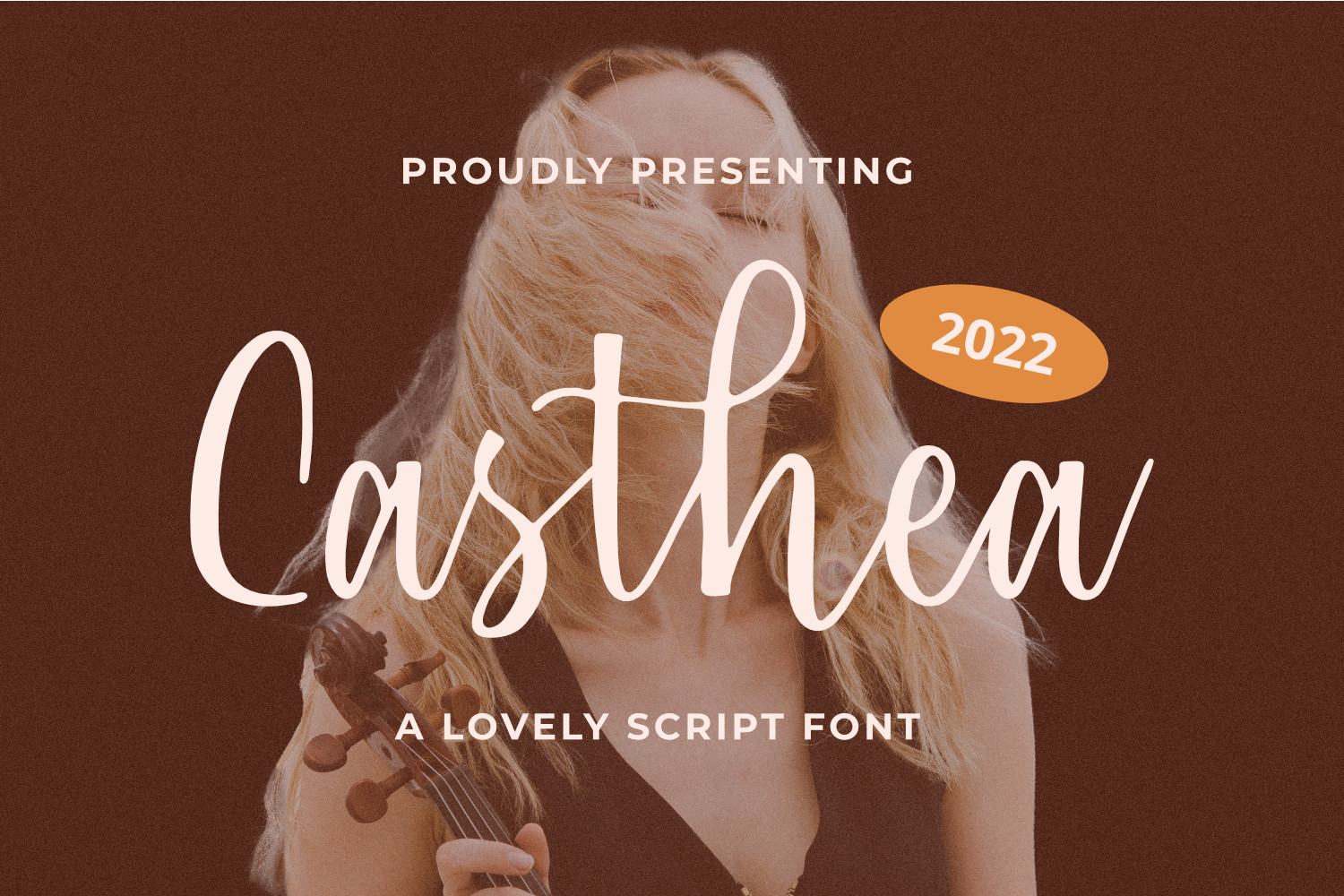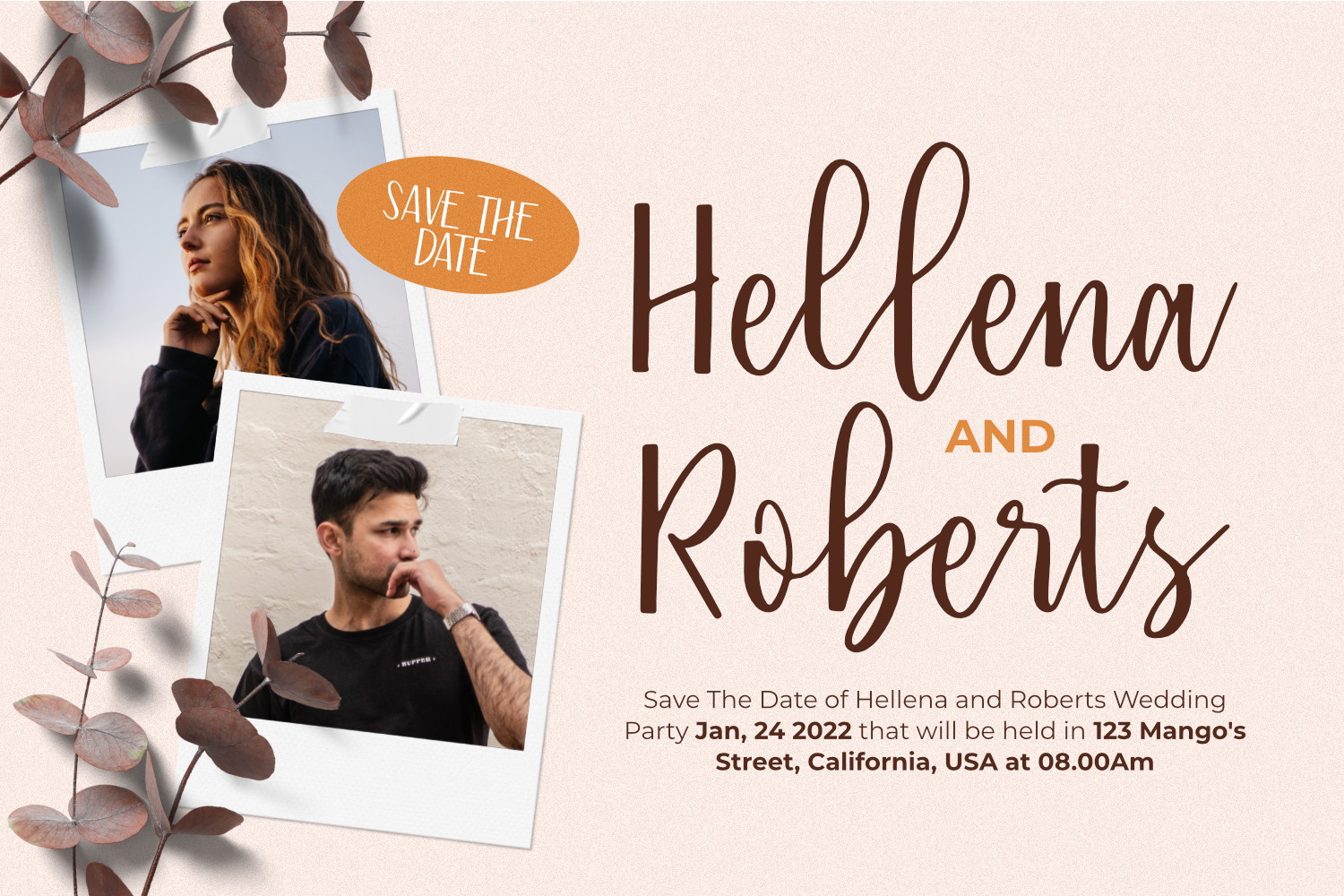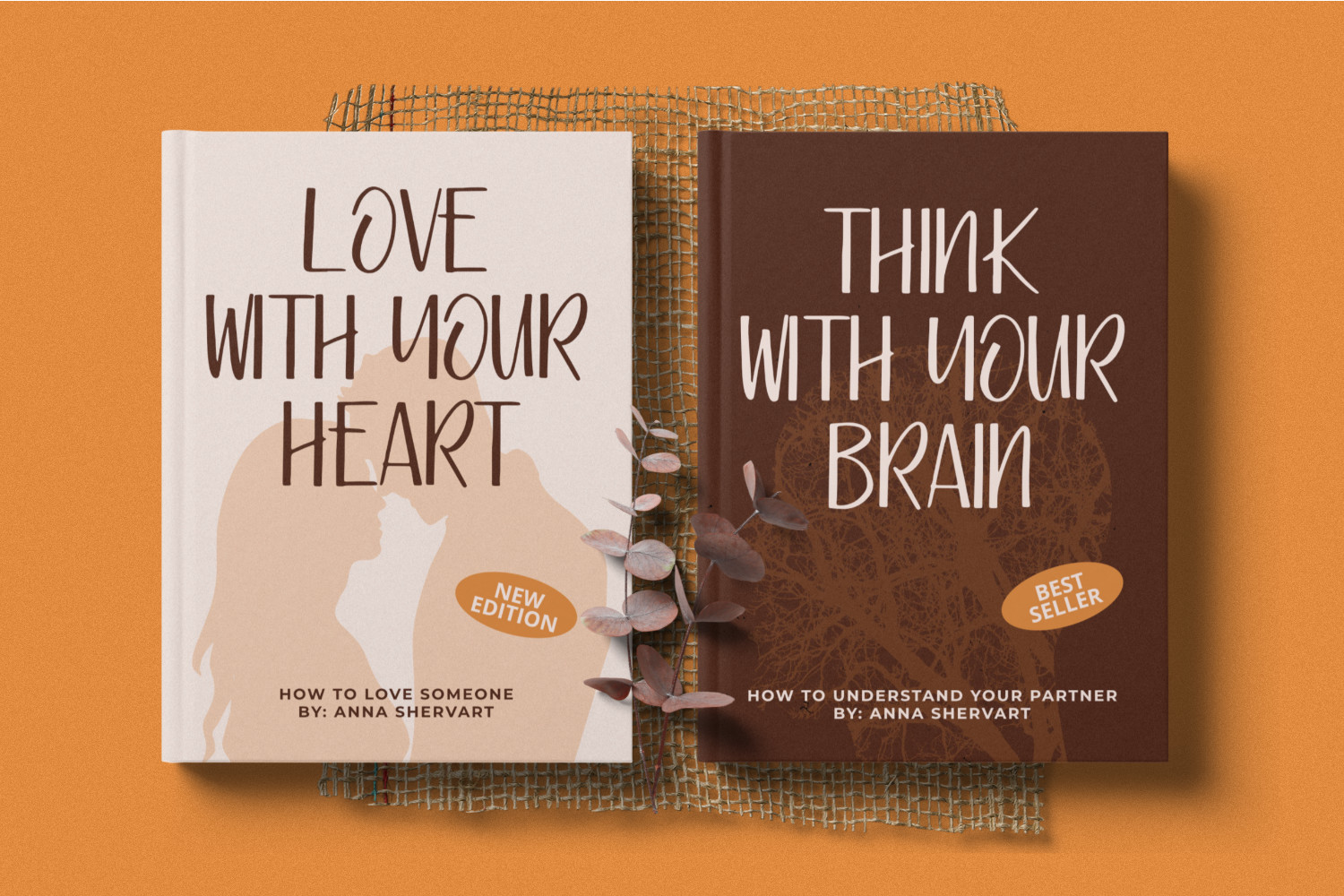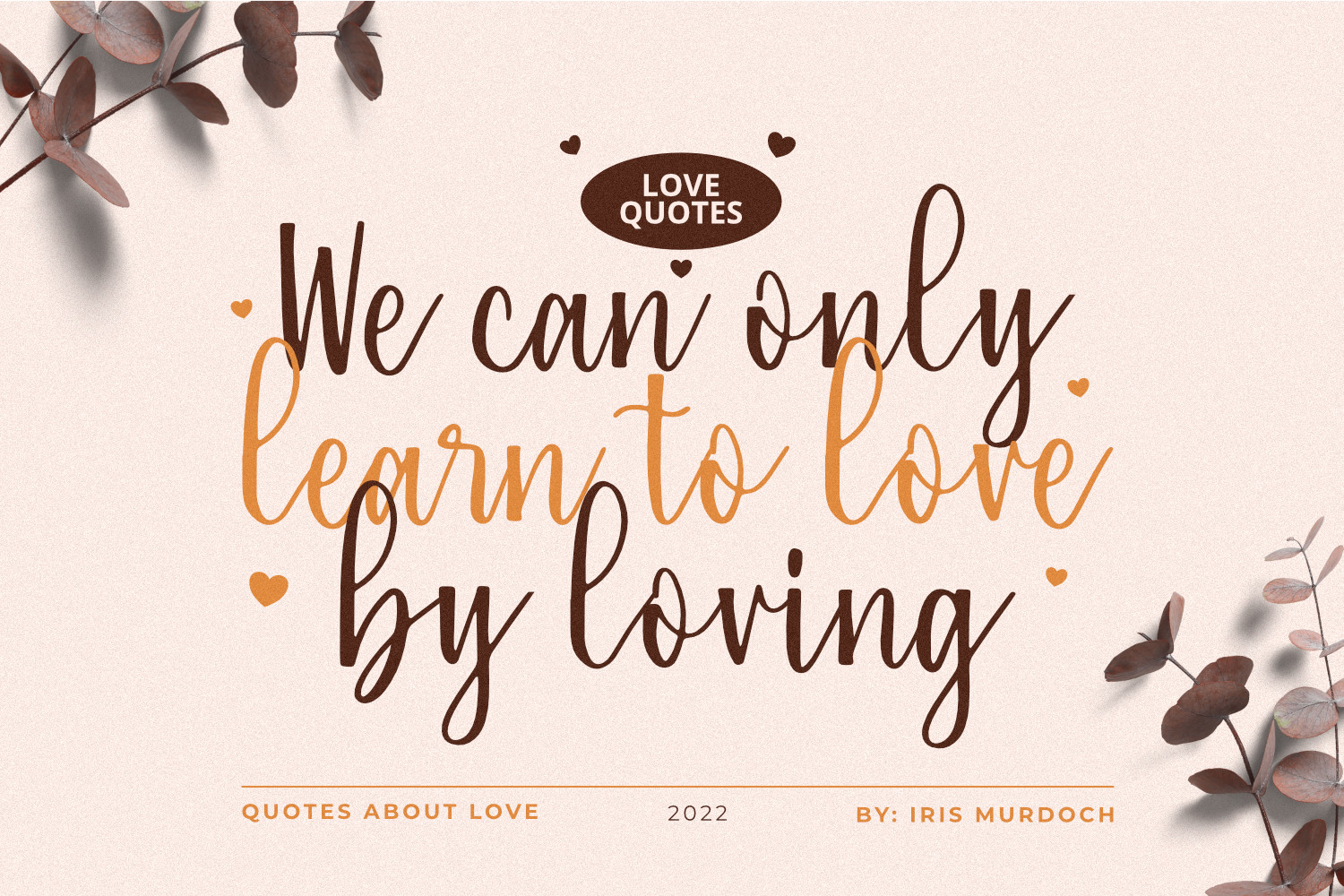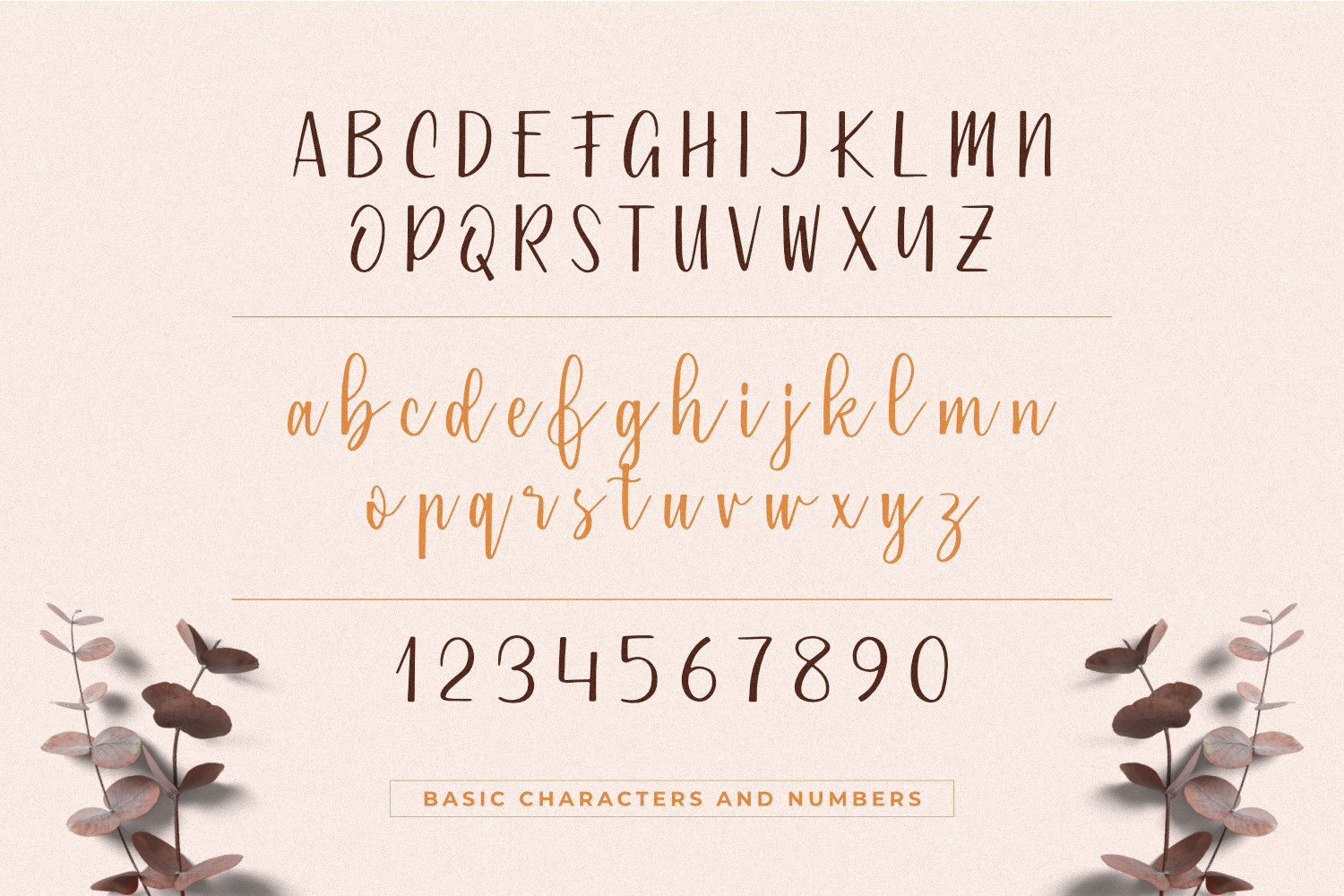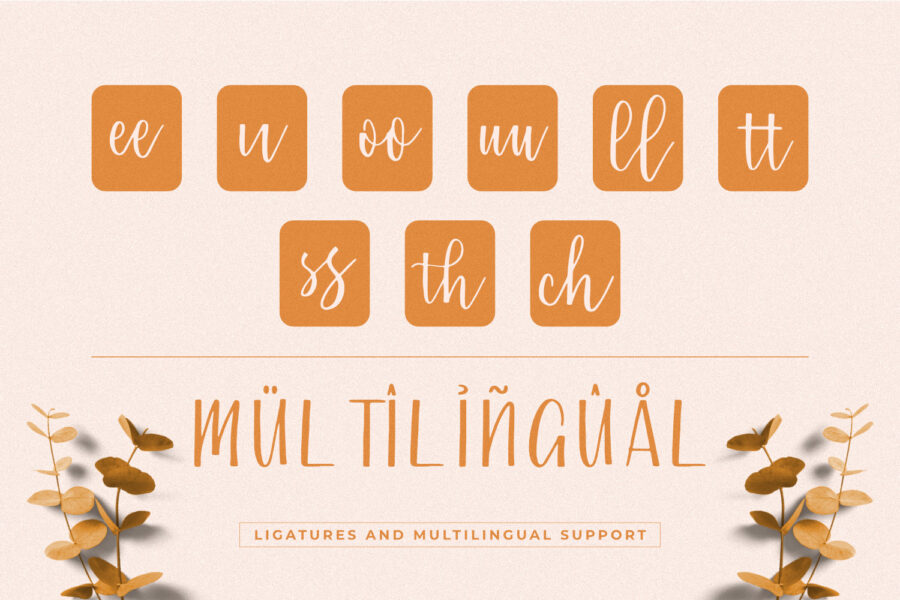
Casthea is a lovely and graceful script font that blends playful elegance with a natural handwritten feel. With its smooth curves and charming letterforms, Casthea is perfect for wedding invitations, romantic quotes, greeting cards, or any project that calls for a personal and heartfelt touch.
The font comes with a beautiful set of uppercase and lowercase letters, ligatures, multilingual support, and numerals. It also includes a clean sans-style uppercase set to complement the script lowercase—offering versatility for modern designs, branding projects, and book covers that aim for a soft and stylish aesthetic.